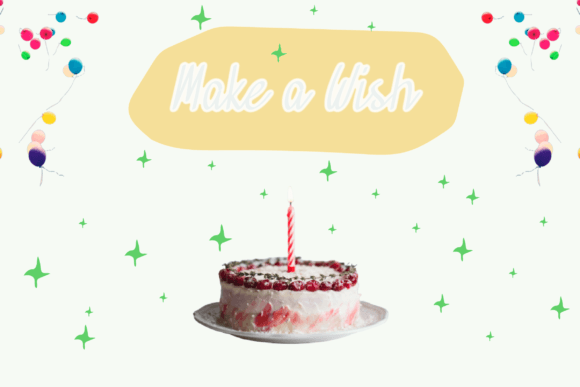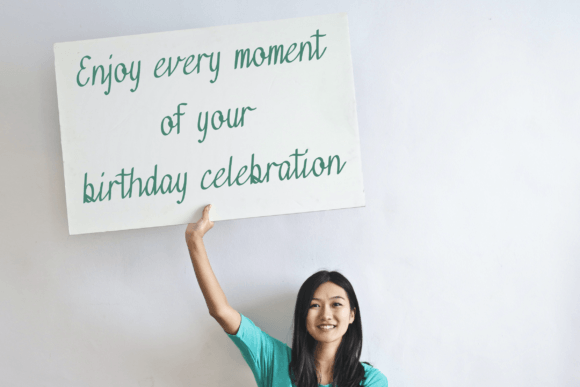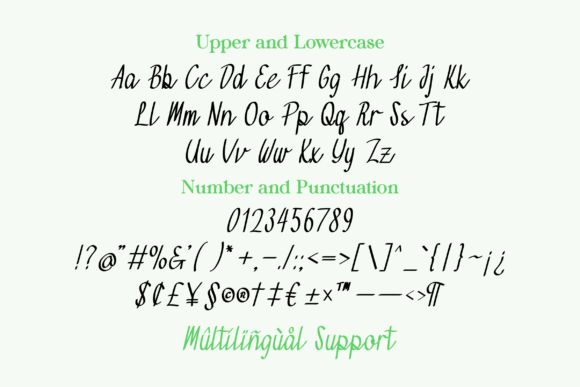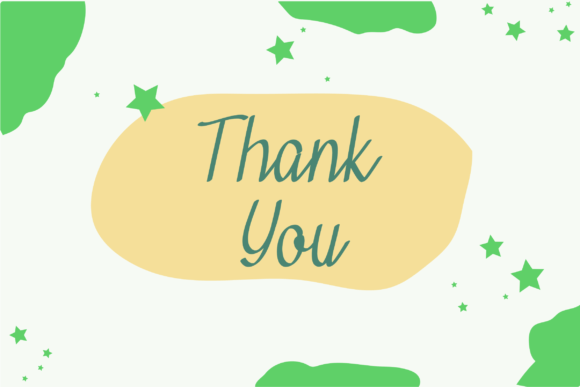
Biloba Font: Adding a Personal Touch to Your Designs
In the world of typography, fonts play a crucial role in conveying the tone and personality of a design. For crafters, designers, and artists, finding the right font can make all the difference in bringing their creative vision to life. If you’re looking for a font that adds a warm, inviting, and personal touch to your projects, look no further than Biloba Font.
What is Biloba Font?
Biloba is a charming handwritten font that has gained popularity among designers and crafters for its unique and organic feel. Its natural flow and strokes capture the essence of handwritten expression, making it perfect for a wide range of creative projects. Whether you’re designing invitations, creating social media graphics, or crafting digital content, Biloba Font is an excellent choice.
Characteristics of Biloba Font
Biloba Font boasts several characteristics that make it stand out from other fonts. Some of its notable features include:
- Organic strokes: Biloba’s strokes are imperfectly perfect, with a natural flow that mimics handwritten text.
- Handwritten feel: The font has a warm, inviting feel that adds a personal touch to any design.
- Versatility: Biloba Font is suitable for a wide range of projects, from creative designs to invitations and more.
Uses of Biloba Font
Biloba Font is an incredibly versatile font that can be used in various design projects. Here are some ideas to get you started:
- Invitations: Add a personal touch to your wedding invitations, birthday party invites, or baby shower announcements.
- Social media graphics: Use Biloba Font to create engaging social media graphics, such as quotes, promotions, or announcements.
- Digital content: Add a warm and inviting feel to your blog posts, articles, or website content.
- Crafting projects: Use Biloba Font to create custom titles, headings, or text for your crafting projects, such as scrapbooking, card making, or DIY tutorials.
Benefits of Using Biloba Font
So, why choose Biloba Font for your designs? Here are some benefits of using this charming handwritten font:
- Unique and distinctive: Biloba Font stands out from more traditional fonts, adding a unique touch to your designs.
- Emotional connection: The font’s handwritten feel creates an emotional connection with your audience, making your design more relatable and engaging.
- Easy to read: Despite its organic feel, Biloba Font is easy to read, making it perfect for body text or headings.
Tips for Using Biloba Font
To get the most out of Biloba Font, here are some tips to keep in mind:
- Pair with complementary fonts: Combine Biloba Font with complementary fonts to create visual interest and hierarchy.
- Experiment with colors: Try pairing Biloba Font with different colors to create a unique and eye-catching design.
- Use for headings and titles: Biloba Font is perfect for headings and titles, adding a personal touch to your design.
In conclusion, Biloba Font is a charming handwritten font that brings a personal touch to any project. Its organic strokes, natural flow, and warm feel make it perfect for creative designs, invitations, and more. With its versatility, unique characteristics, and emotional connection, Biloba Font is an excellent choice for designers and crafters looking to add a unique touch to their designs.